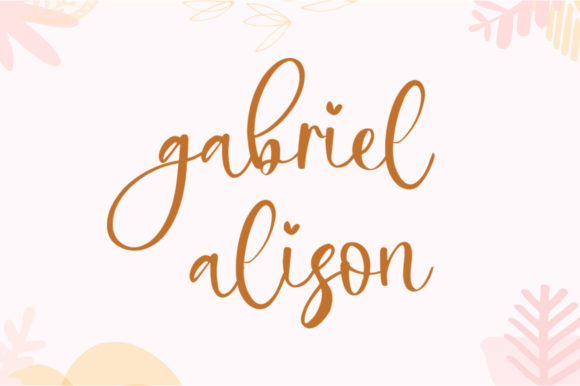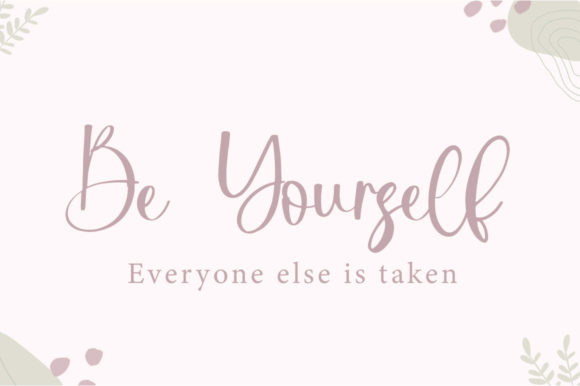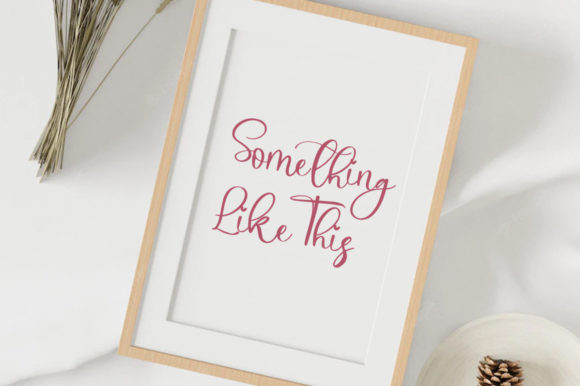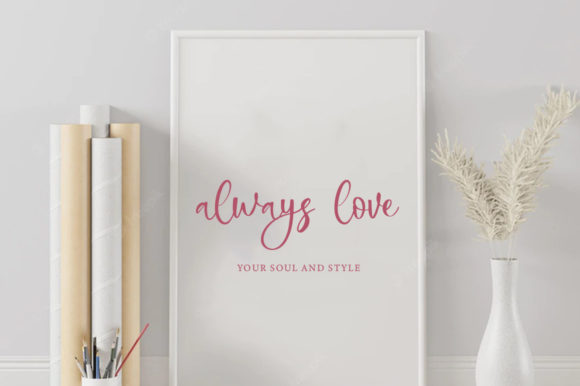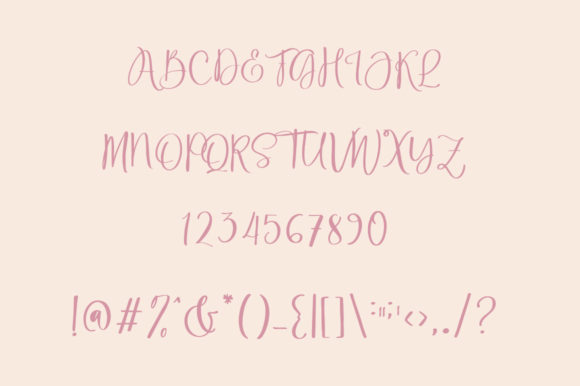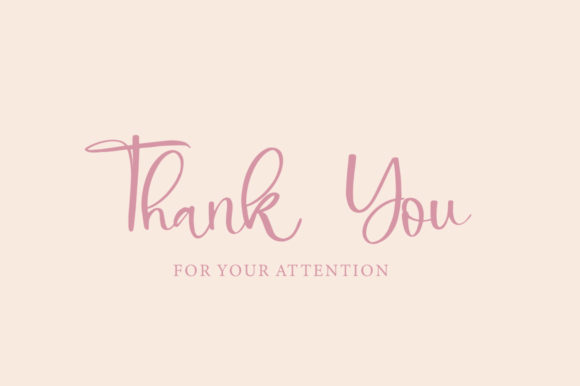
Introduction to Larfiena Font
Have you ever stared at a blank page, waiting for that perfect design to emerge? For many of us, it’s a moment of pure creative bliss. But what happens when that spark is missing? That’s where the right design resource comes in – a high-quality font that can elevate our ideas to new heights. One such gem is the Larfiena Font, a beautiful script font that’s about to revolutionize your creative projects.
Imagine being able to add a touch of elegance and sophistication to your designs with just one click. That’s exactly what the Larfiena Font offers. With its transparent background and versatility, this font is a game-changer for designers looking to take their work to the next level. Whether you’re working on a logo, a brochure, or a website, the Larfiena Font is sure to make a lasting impression.
Key Features of Larfiena Font
- Perfect for designers and artists working on projects that require a unique, elegant font
- Includes a range of styles and weights for maximum flexibility
Honest Review: Larfiena Font
I recently came across the Larfiena Font, a free design resource that’s been making waves in the creative community. I decided to put it to the test and see if it’s worth the hype.
What works well: ✨ The Larfiena Font is a high-quality font that offers a lot of flexibility for designers. It’s available in a range of weights, making it perfect for projects that require a consistent look and feel. The transparent background is a nice touch, allowing you to easily overlay text on images or use it as a standalone element.
- Wide range of weights for consistent design
- Transparent background for easy overlay
- High-quality design suitable for creative projects
Overall, I’m impressed with the Larfiena Font. It’s a solid design resource that’s perfect for personal projects or small-scale designs. However, if you’re looking for a font for commercial use, you may want to consider other options. With a little creativity, the Larfiena Font can be a great addition to your design toolkit.
Some tips for getting the most out of the Larfiena Font include experimenting with different font sizes and styles, combining the font with other design elements, and using it to create custom graphics and illustrations.
The Larfiena Font is commonly used in a variety of creative projects, including graphic design, typography, and digital art. Its high-quality design and transparent background make it a popular choice among designers and artists.
Can I use the Larfiena Font on a transparent background?
Yes, the Larfiena Font supports transparent backgrounds, making it ideal for use in graphic design, digital art, and other creative projects that require a transparent or semi-transparent font.